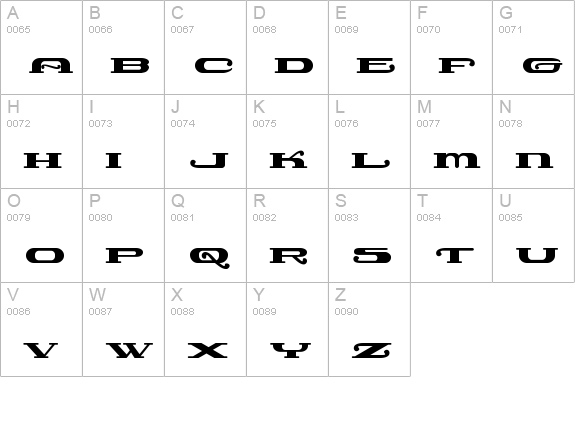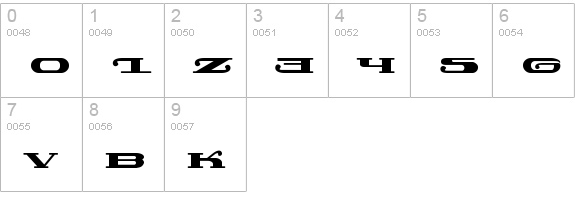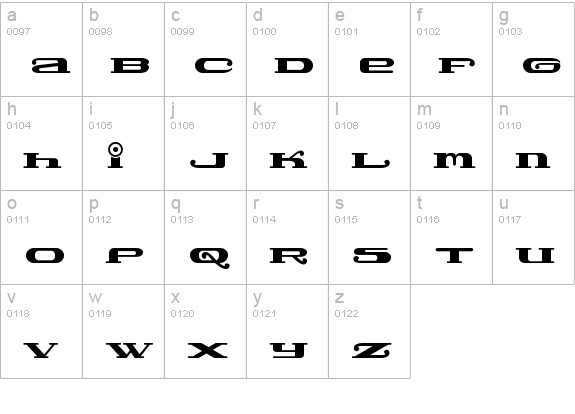
LemonadeSpeedster Font Details
Introducing LemonadeSpeedster, a bold and energetic font that will add a refreshing twist to your designs! With its sleek and modern letterforms, this typeface exudes a sense of speed, agility, and zest. Whether you're creating a poster for a sports event, designing a logo for a fitness brand, or crafting vibrant social media graphics, LemonadeSpeedster will effortlessly inject a burst of vitality into your project. This font is not only eye-catching but also versatile, making it suitable for a wide range of creative applications. Its clean lines and distinctive shapes ensure excellent readability, even at smaller sizes, while its bold strokes command attention at larger scales. The attention to detail in each character gives LemonadeSpeedster a unique personality, making it stand out from the crowd. And the best part? LemonadeSpeedster is available for free download at FontsMarket.com! That's right, you can unleash the power of this dynamic font without any cost. Whether you're a professional designer or a hobbyist, this free font is a valuable addition to your typographic toolkit. So, what are you waiting for? Go ahead and download LemonadeSpeedster from FontsMarket.com today. Allow its vibrant and energetic vibes to infuse your designs with a sense of zest and excitement. With LemonadeSpeedster, your typography will never be the same again!